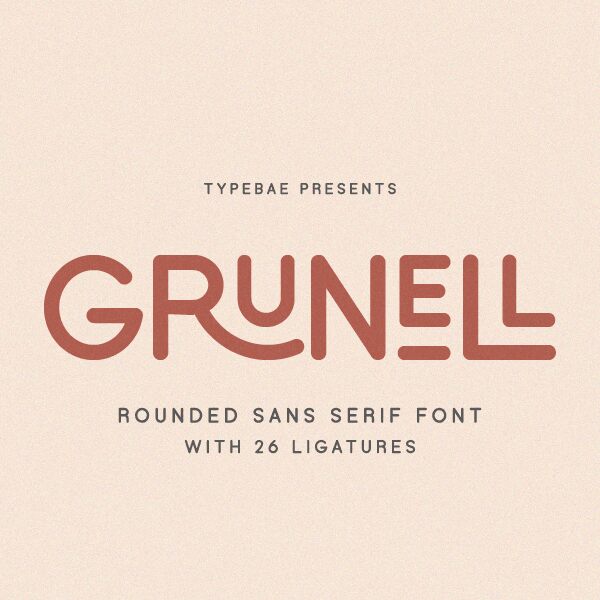
Grunell
Grunell font by Typebae Foundry is a modern sans-serif typeface suitable for informal relaxed designs like cards and menus. It combines visual balance and legibility with an energetic touch that gives it attention-grabbing properties. It is rounded, slightly geometric, people friendly, approachable albeit designed for visual hierarchy due to the uniform stroke thickness and minimal contrast.
Where can Grunell be used? A free font perfect for branding minimalistic companies or beauty products as in logos or packages. The flawless legibility it offers allows its use in editorials be them magazines or newspapers, headings inside children books or even general reading material like novels or short stories all have a better outcome with this font.